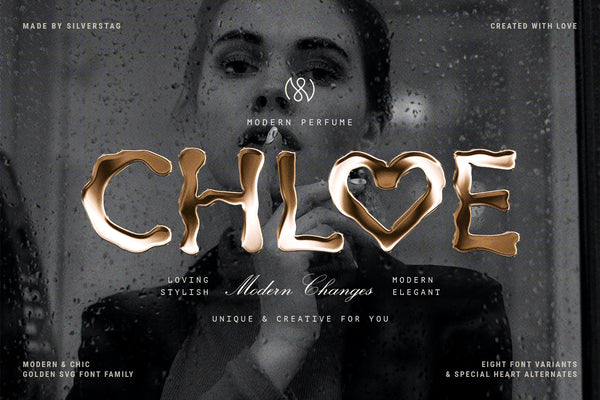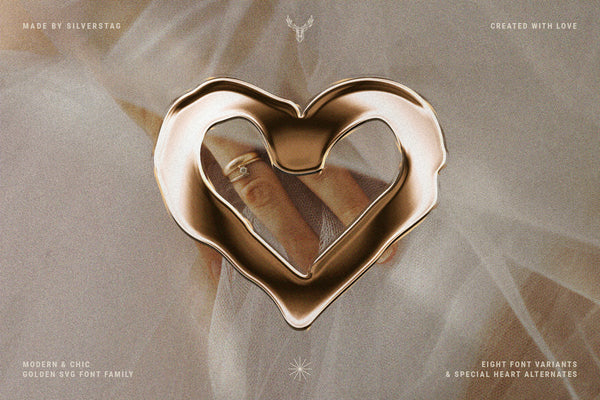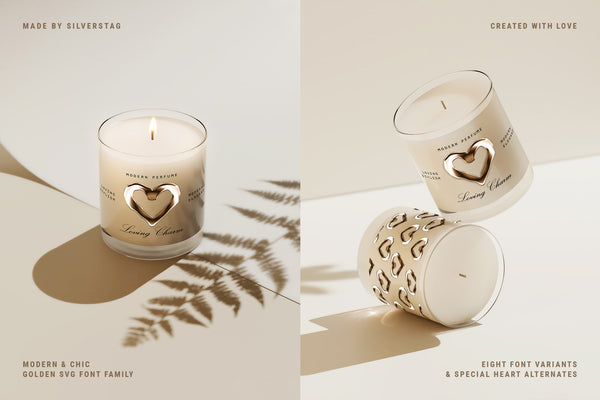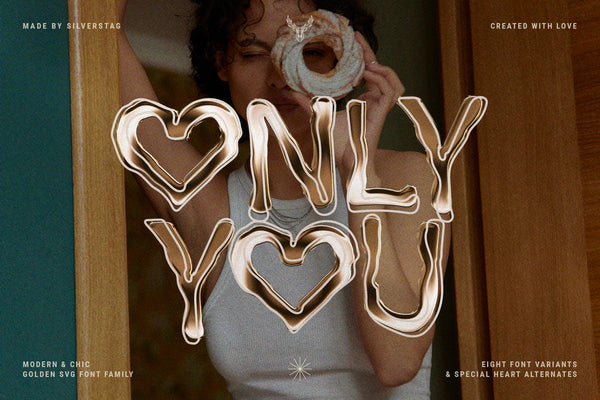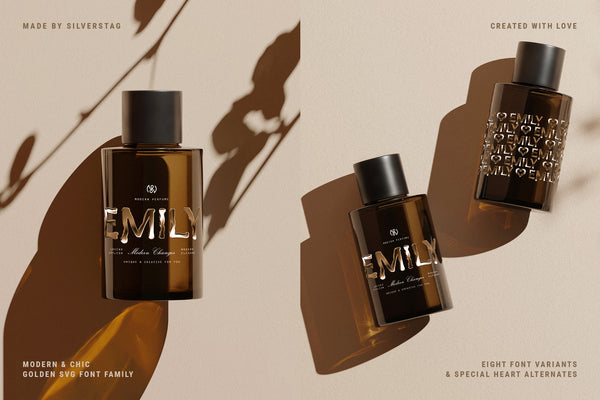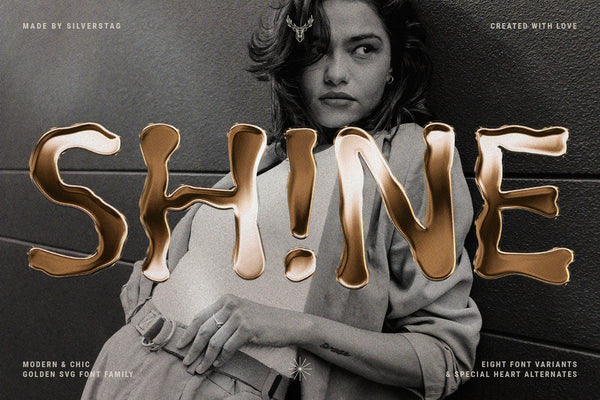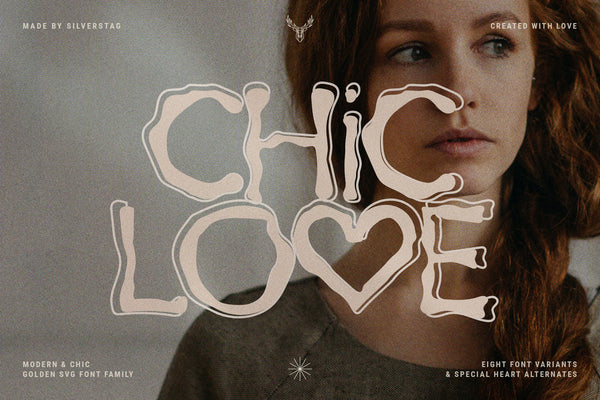
Love & Hearts - Golden SVG Font Pack
Love & Hearts is a bold and beautiful golden SVG font family designed to add sparkle, sophistication, and charm to your creative work. Featuring 8 unique fonts, this pack was born from a passion for experimenting beyond the boundaries of traditional typography—and just in time for Valentine’s Day!
Whether you’re designing logos, social media content, presentations, posters, invitations, or branding packages, Love & Hearts delivers versatility and elegance in every style. The golden liquid texture of the SVG versions gives your designs a rich, luxurious edge, while the standard vector versions ensure wide compatibility across all platforms and software—including Canva and your website.
• True golden texture in SVG styles for a high-end, handcrafted feel
• Playful heart details for seasonal or romantic design accents
• Multilingual support, punctuation, and numerals